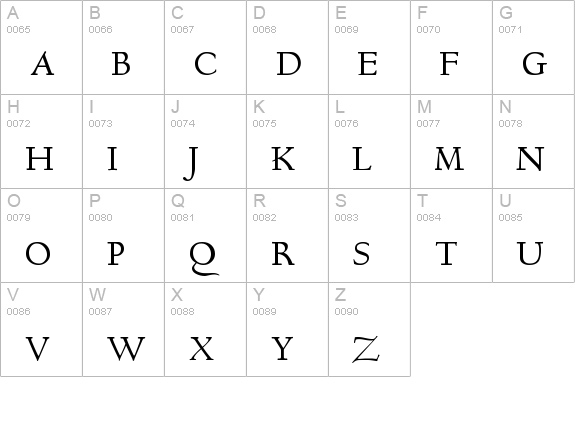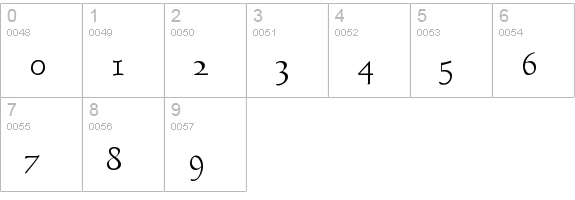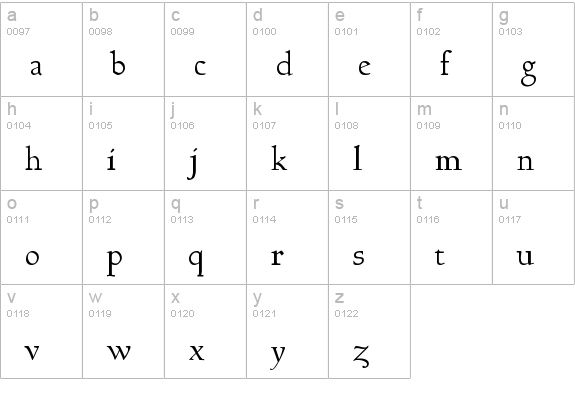
Goundy Regular is the standard, neutral variant in the Goundy typeface family \xE2\x80\x94 well suited to general body text, paragraphs, and standard typographic work.
Goundy Regular is a versatile and elegant font that exudes sophistication and style. With its clean lines and modern aesthetic, this typeface is perfect for a wide range of design projects, from branding to editorial design. The timeless appeal of Goundy Regular makes it a great choice for both print and digital applications. What sets Goundy Regular apart is not just its design, but also the fact that it is available for free download at FontsMarket.com. This means that you can easily access this high-quality font without breaking the bank, making it a valuable addition to your font library. Whether you're working on a logo, website, or any other creative project, Goundy Regular is sure to make a lasting impression. Download it for free today and elevate your designs with this stunning typeface.